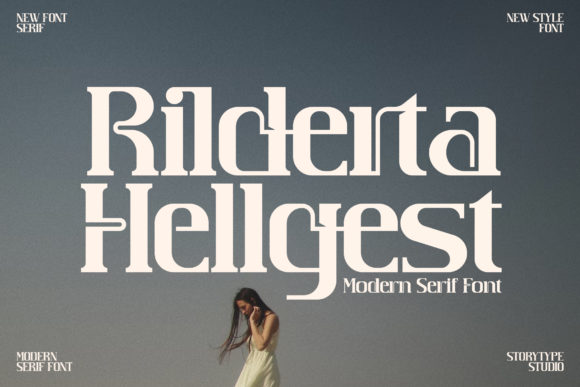
Journey back in time with Rilderta Hellges, the serif font that captures the essence of bygone eras. Its nostalgic charm and vintage appeal will add a touch of enchantment to your creative projects, transporting you to a world of yesteryear.
Picture a wedding backdrop adorned with the elegant curves and delicate flourishes of Rilderta Hellges. The font's timeless beauty will elevate your special day, creating an atmosphere of romance and sophistication. Let your invitations, table settings, and signage exude a classic allure that will leave your guests spellbound.
Unleash your creativity with Rilderta Hellges and explore its endless possibilities. Its versatility extends from heartfelt wedding invitations to captivating posters and brochures. Transform your designs into works of art, imbued with a sense of history and timeless elegance.
With Rilderta Hellges, you'll have access to a treasure trove of glyphs and ligatures, accessible with ease through PUA encoding. Experiment with different combinations to create unique and captivating designs that will leave a lasting impression.
Don't settle for ordinary fonts – embrace the magic of Rilderta Hellges and let your imagination soar. Its nostalgic charm and vintage aesthetic will transport you to a world of enchantment, making your creative visions come to life.